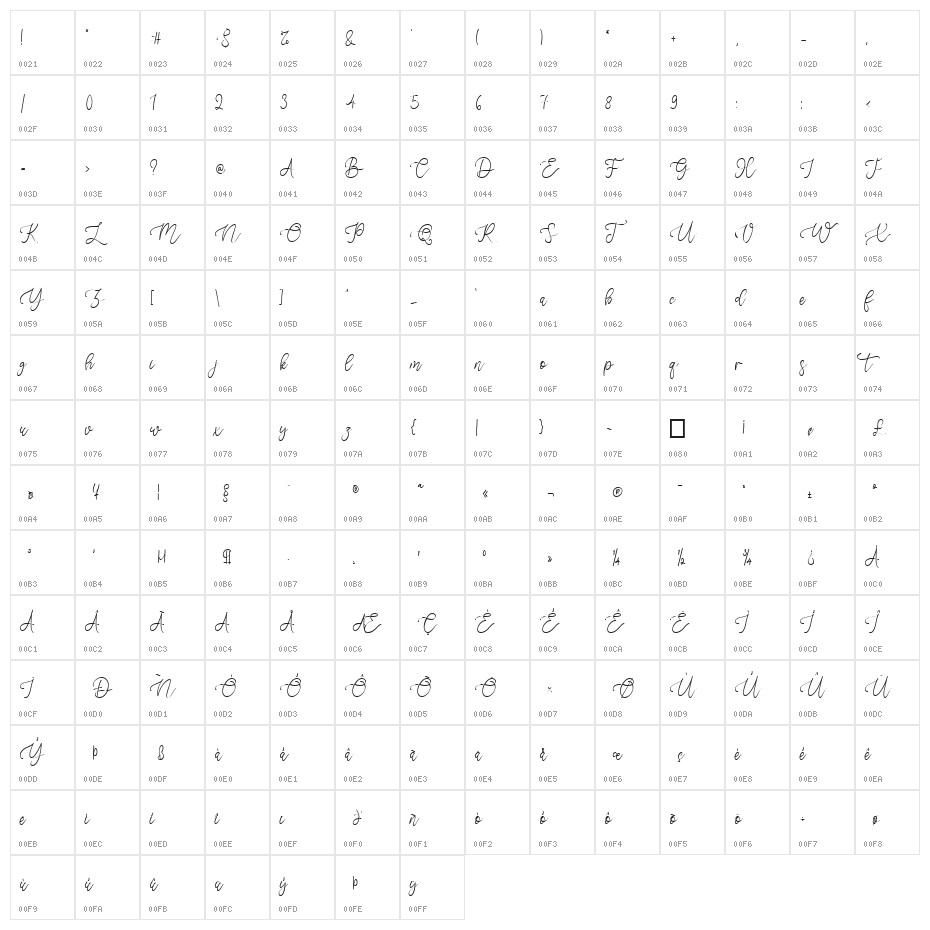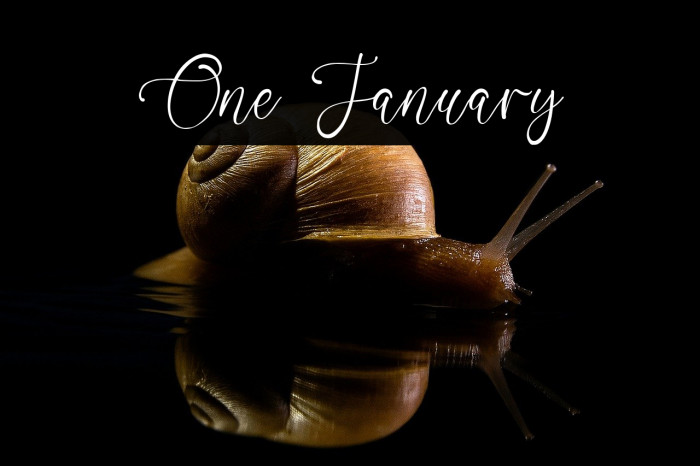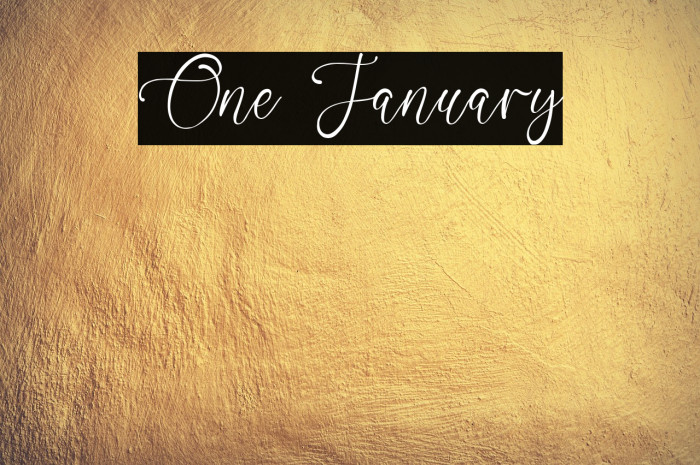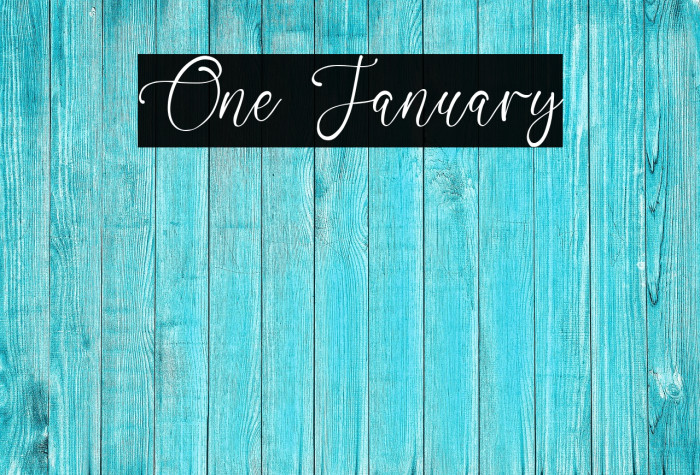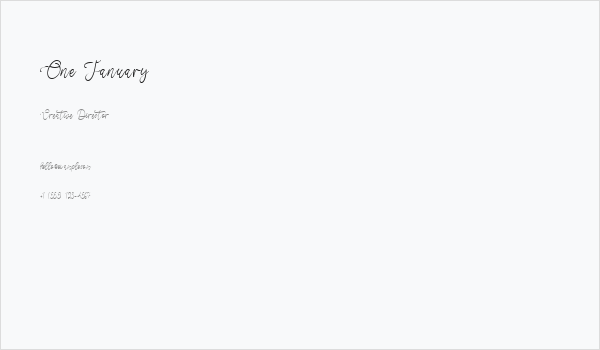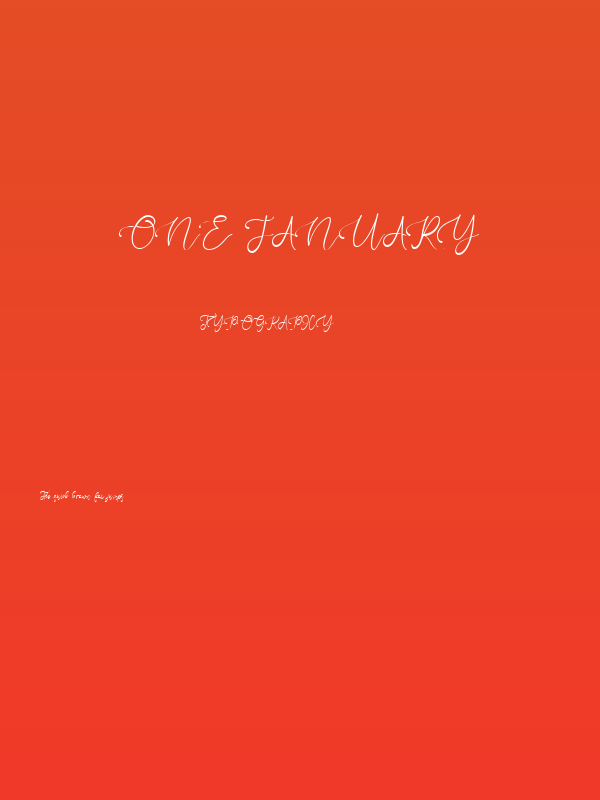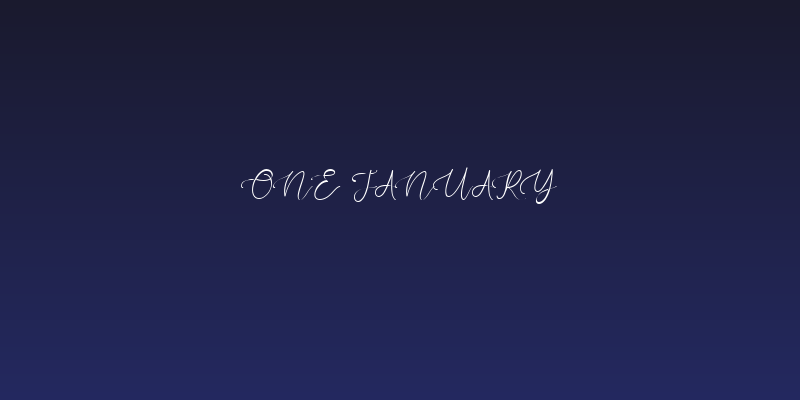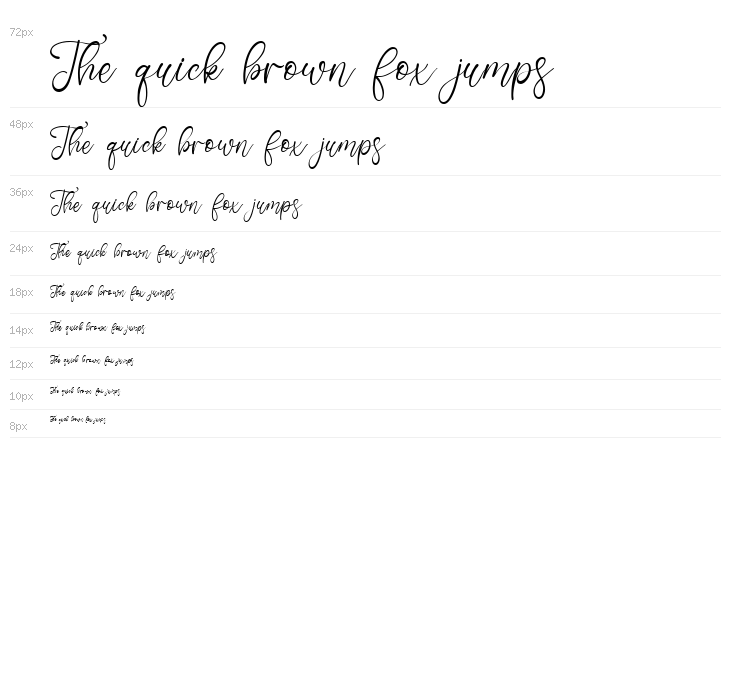
One January Font
One January Description
This elegant script font features flowing, interconnected letters that exude a sense of sophistication and grace. The uppercase letters are characterized by their sweeping curves and flourishes, while the lowercase letters maintain a consistent, fluid style that enhances readability. The numerals are designed with a similar flair, ensuring a cohesive look across all characters. Special characters are thoughtfully integrated, maintaining the font's overall aesthetic. This font is perfect for projects that require a touch of elegance and refinement.
| Overall Style | Elegant |
| Use Case | Logos, Invitations, Branding |
| Proposed Projects | Ideal for wedding invitations, elegant branding, greeting cards, and upscale packaging design. |